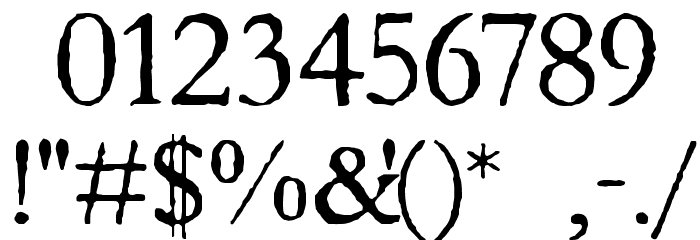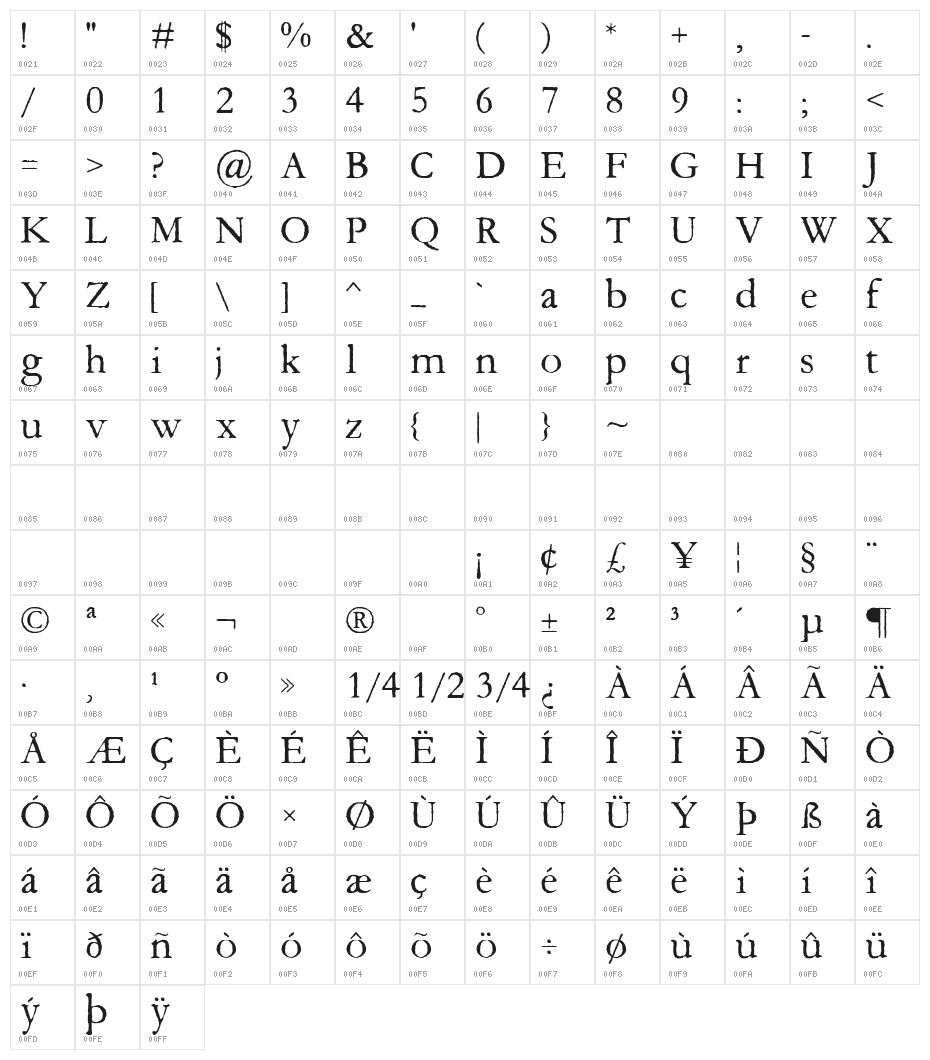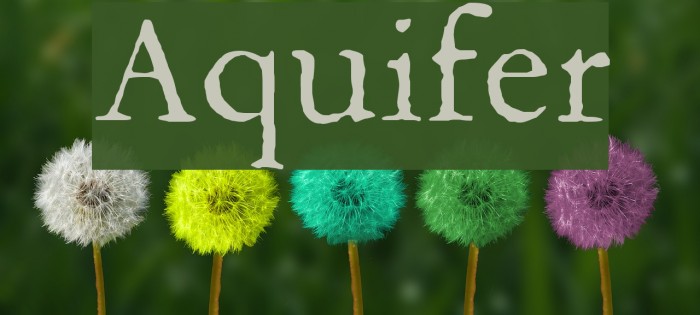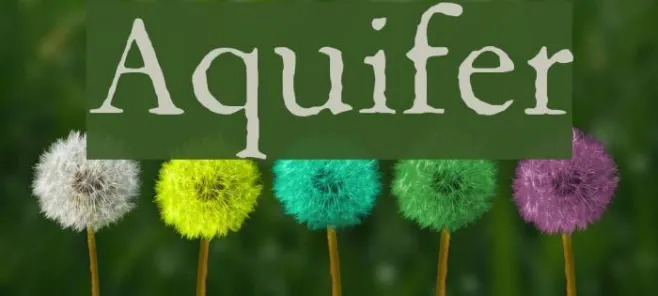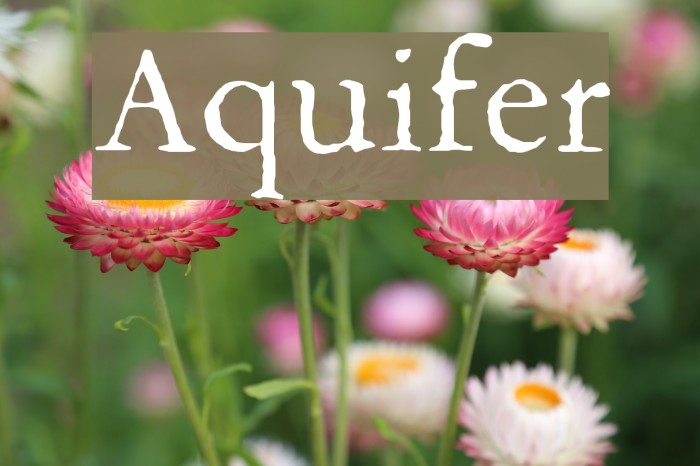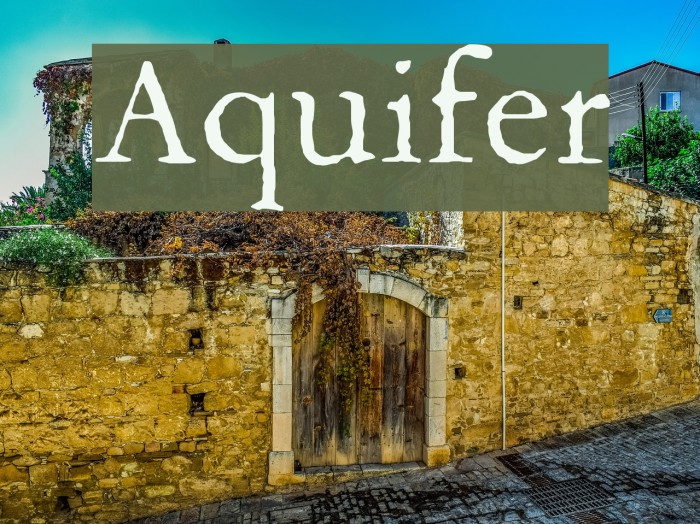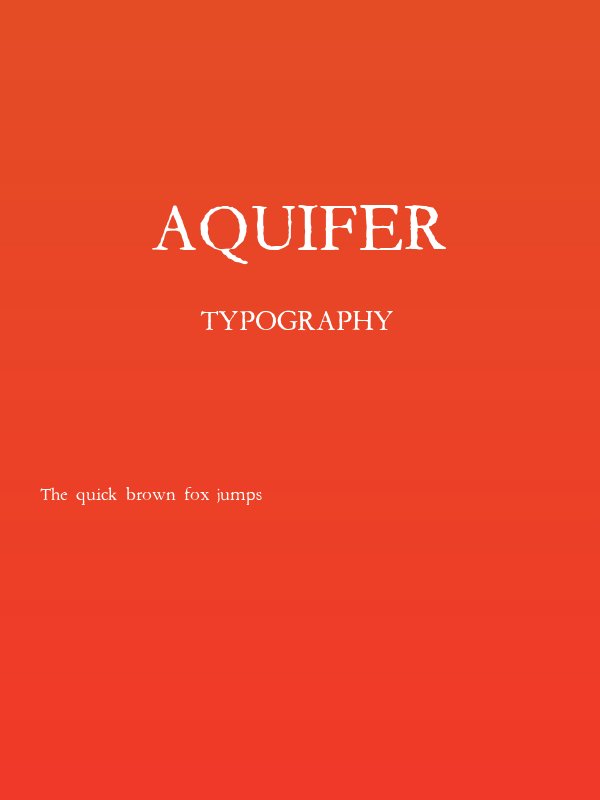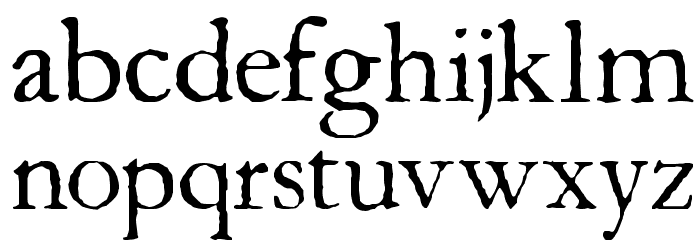
Aquifer Font
Aquifer Description
This font features a distinctive, hand-drawn appearance with irregular strokes and a slightly rough texture, giving it a unique and organic feel. The uppercase letters are bold and prominent, while the lowercase letters maintain a consistent style with a touch of whimsy. Numbers are clear and legible, matching the overall aesthetic. Special characters are creatively designed, adding to the font's artistic charm. The font's uneven lines and varying stroke widths contribute to its rustic and vintage appeal, making it stand out in any design project.
| Use Case | Logos, Posters, Creative Branding |
| Proposed Projects | Ideal for artistic projects, vintage-themed designs, posters, and creative branding. |